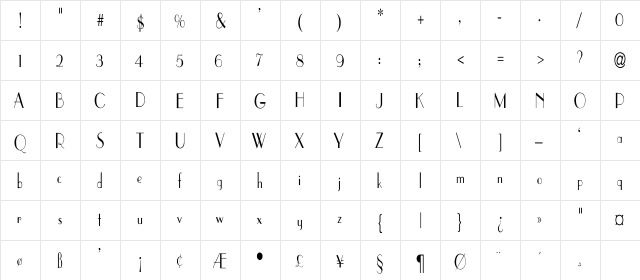
Parisian-Thin Cn Regular
Design Context for Parisian-Thin Cn Typeface
Parisian-Thin Cn takes a measured approach to typography — its balanced proportions and neutral character make it a reliable workhorse for both digital and print work. Its slender proportions lend an understated elegance to any composition.